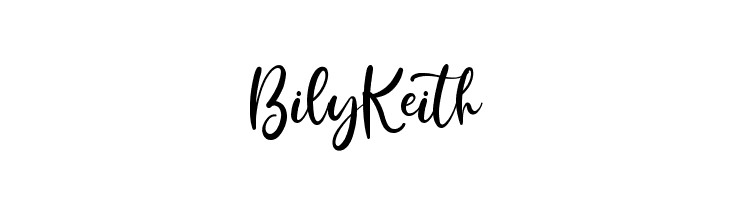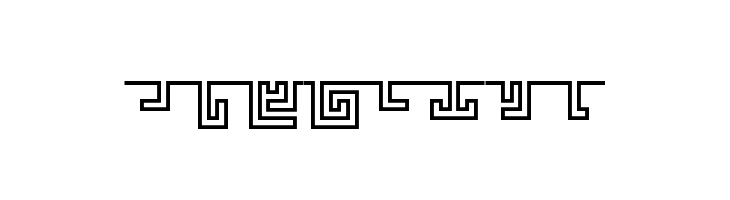
A decorative font with intricate, maze-like geometric patterns.
A modern, monolinear font with geometric shapes and consistent stroke widths.
A playful, hand-drawn font with thin, uneven strokes and a whimsical style.
A playful, hand-drawn font with outlined characters and a creative flair.
A playful, bold, and rounded font with a hand-drawn feel.
A playful, hand-drawn font with thin strokes and rounded edges.
A playful, handwritten font with a whimsical and friendly style.
A playful, handwritten font with fluid, connected strokes and a casual vibe.
A playful, handwritten font with smooth, flowing lines and rounded edges.
A playful, rounded font with a youthful, hand-drawn appearance.